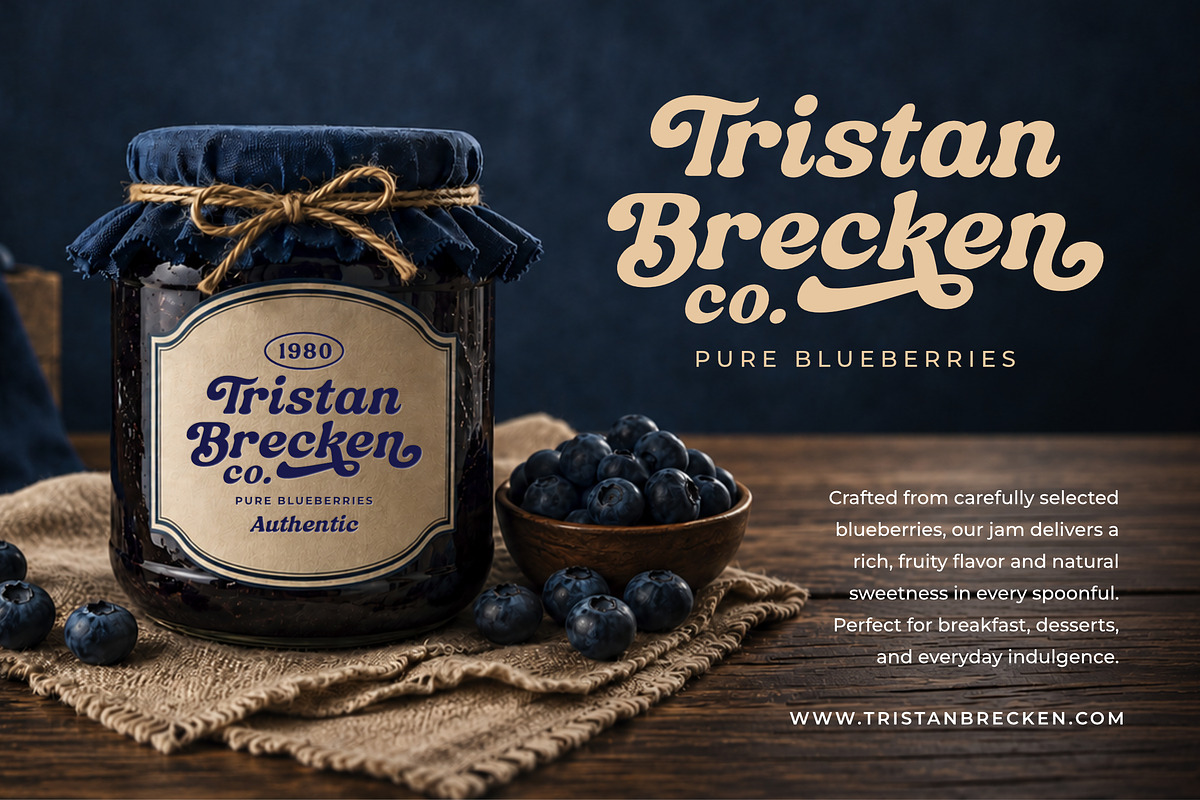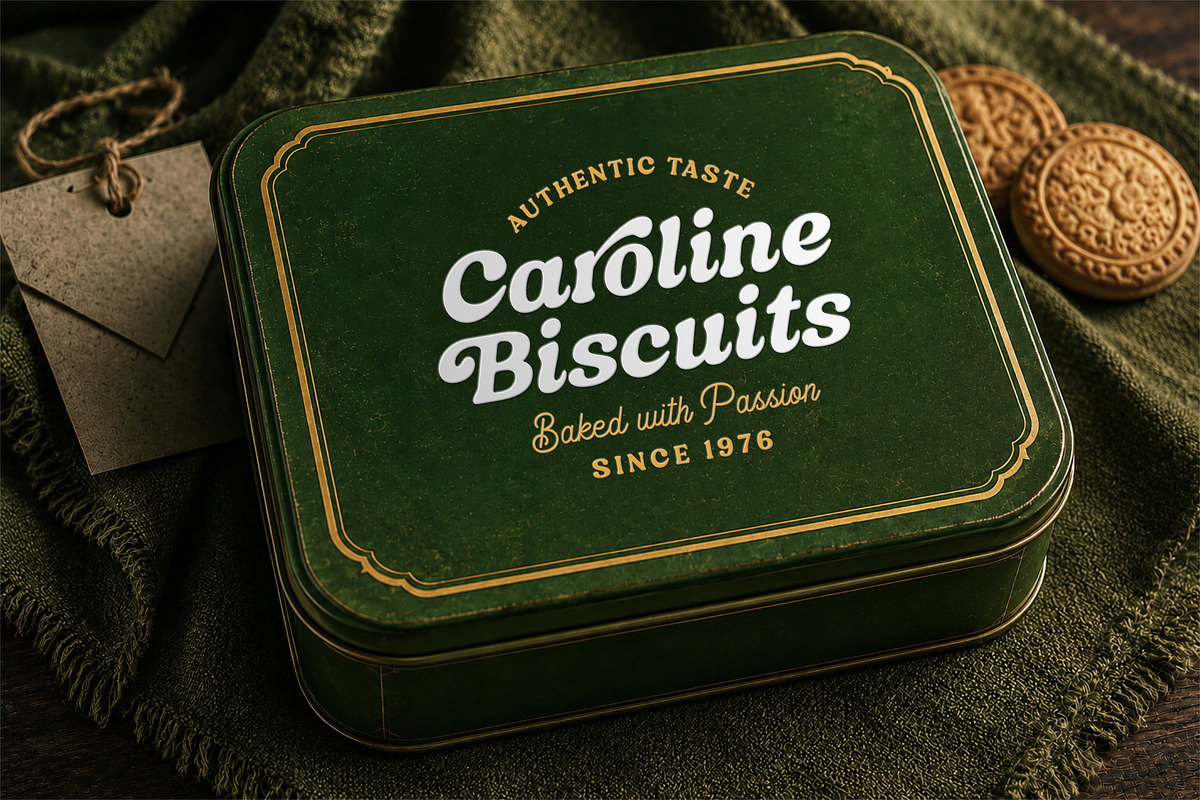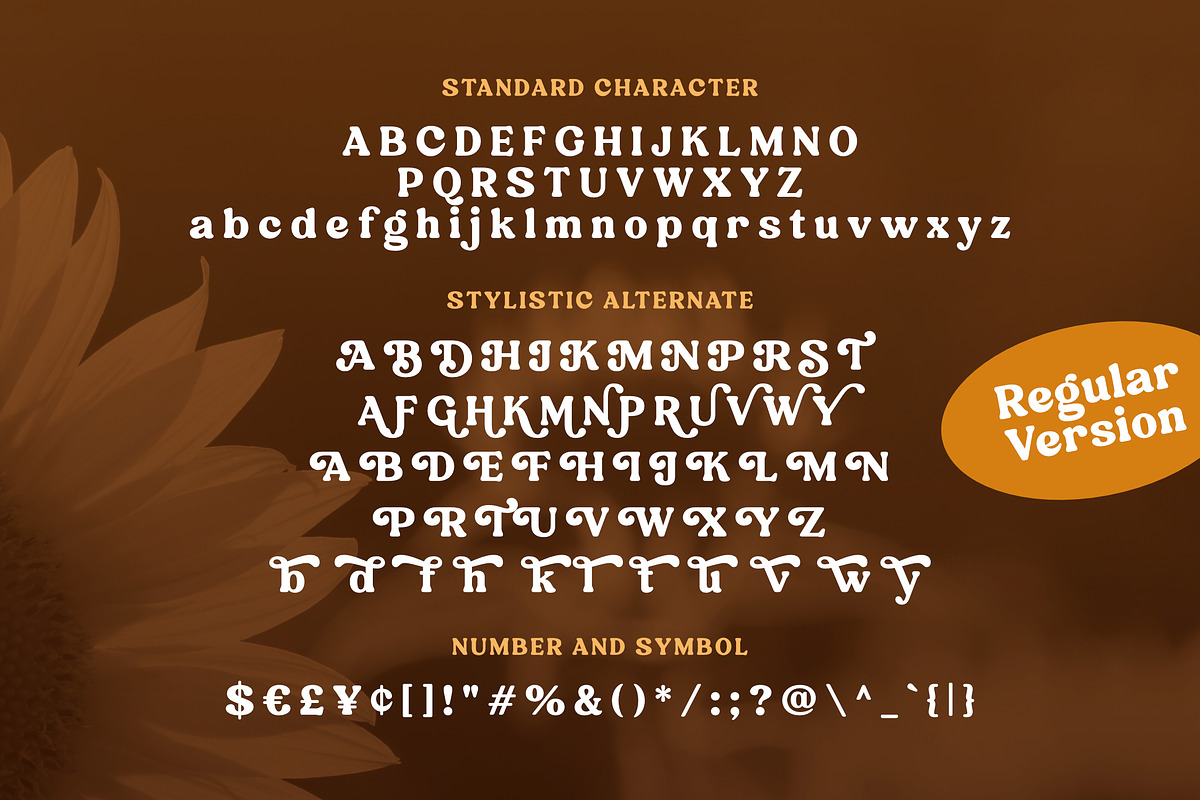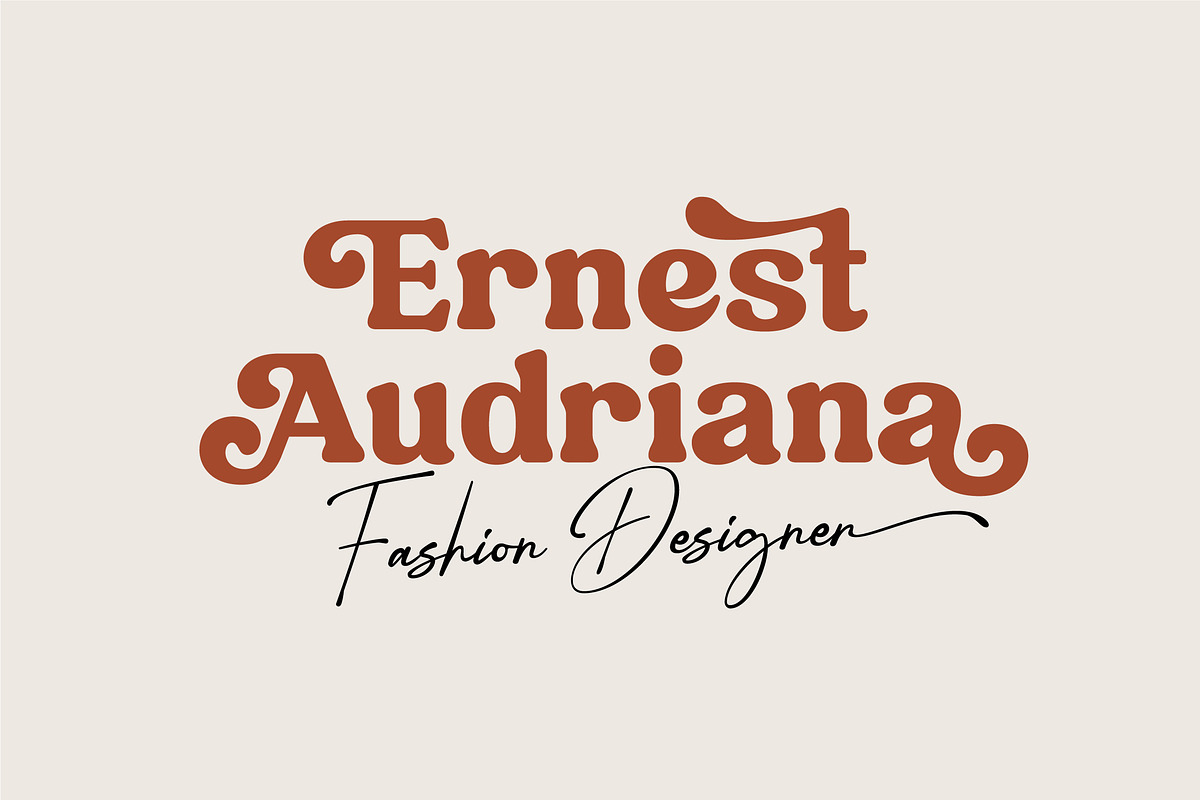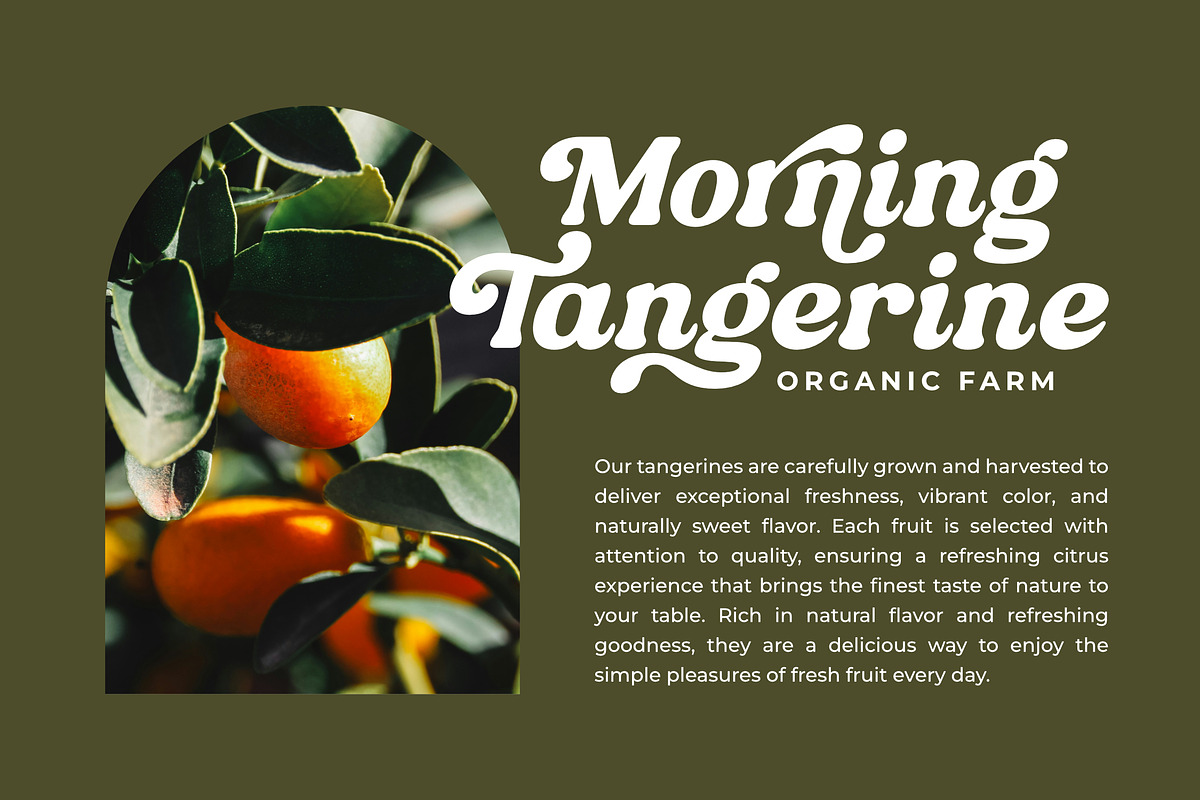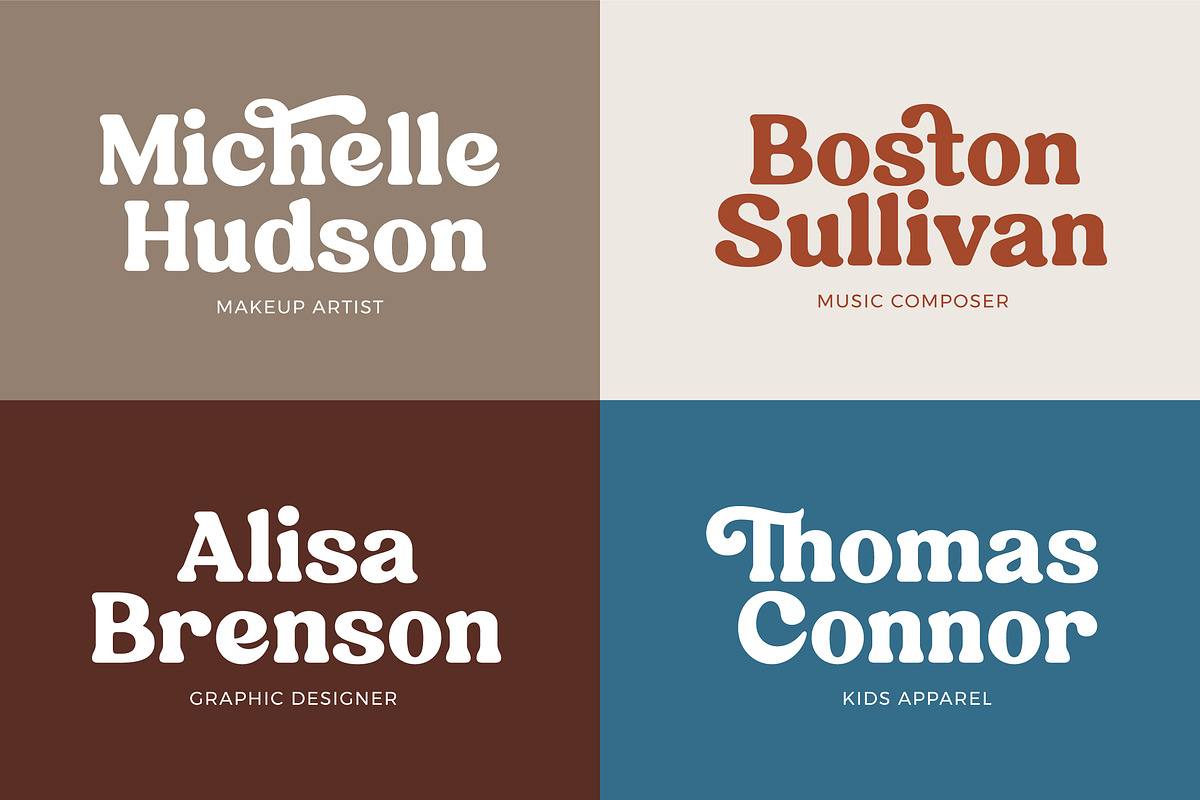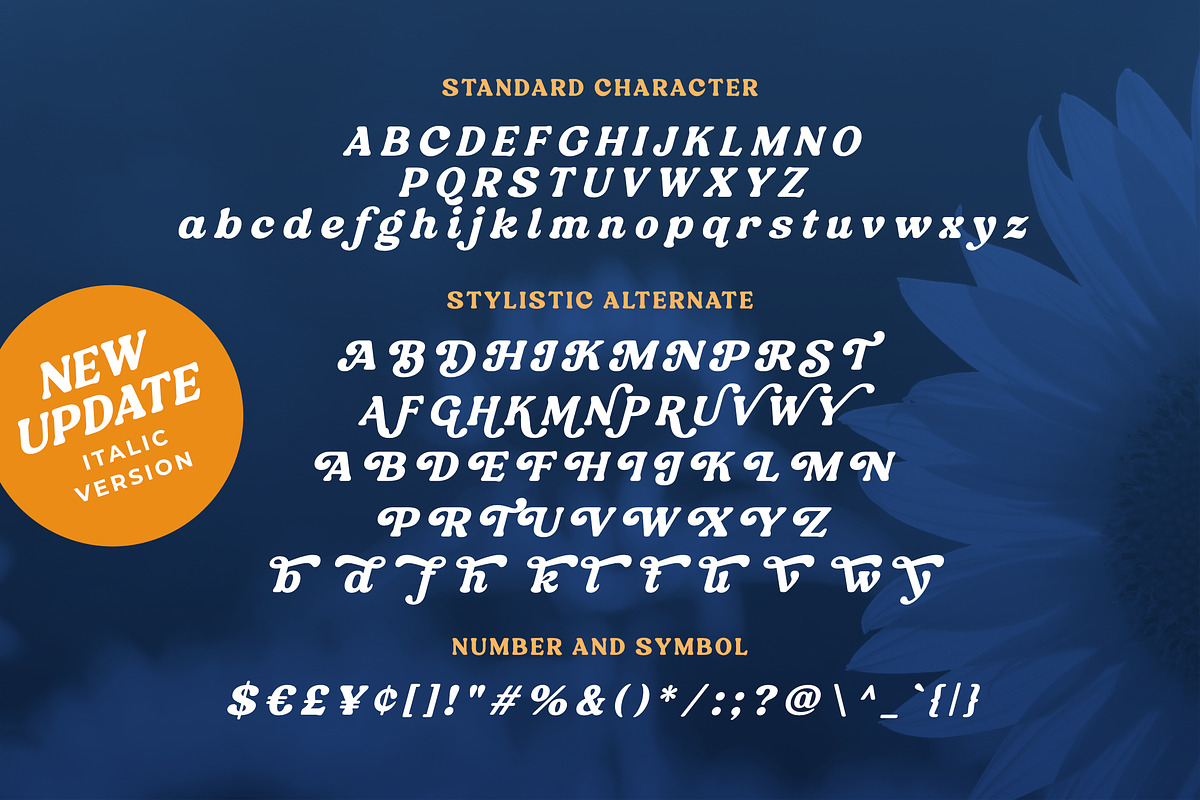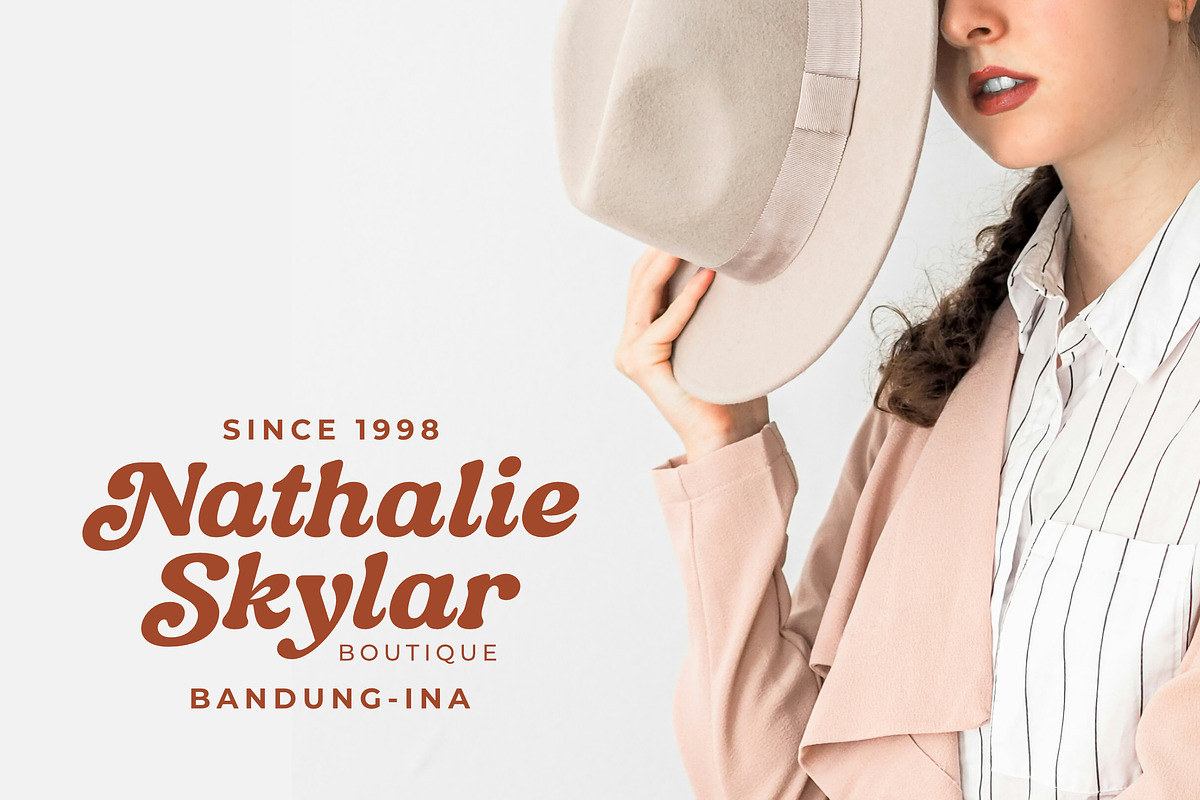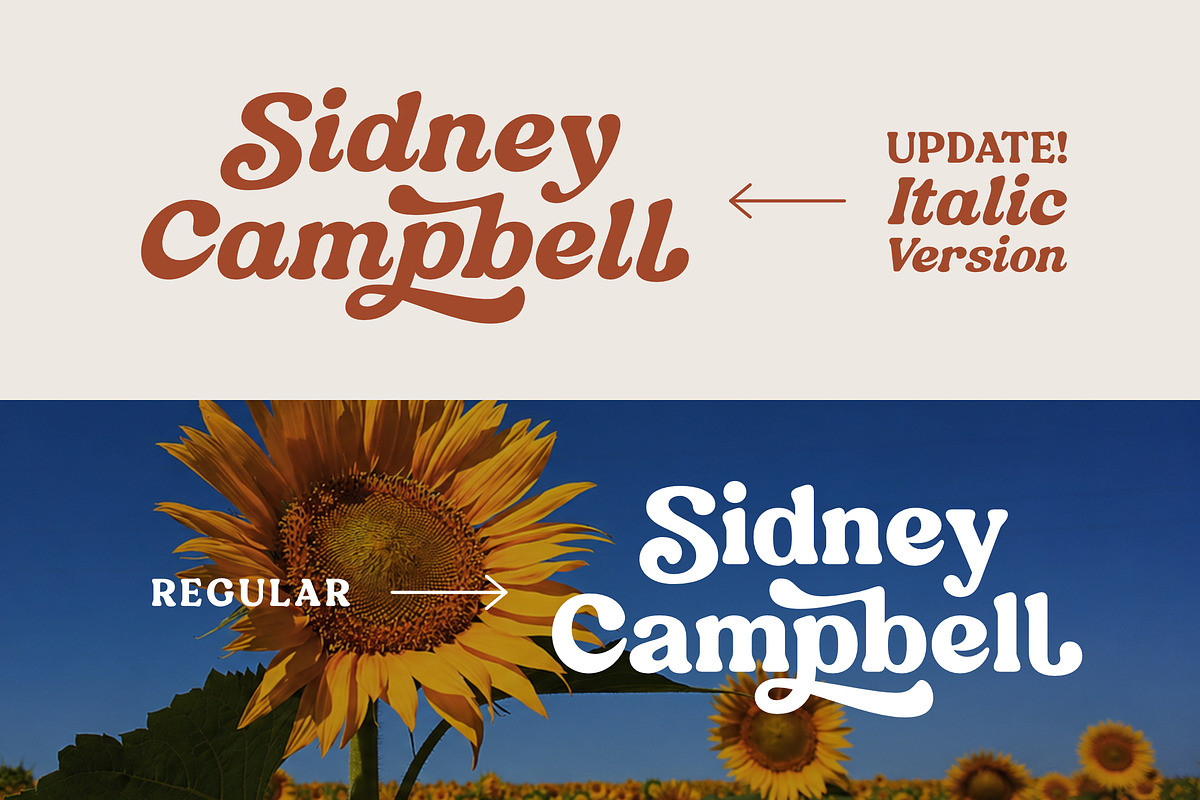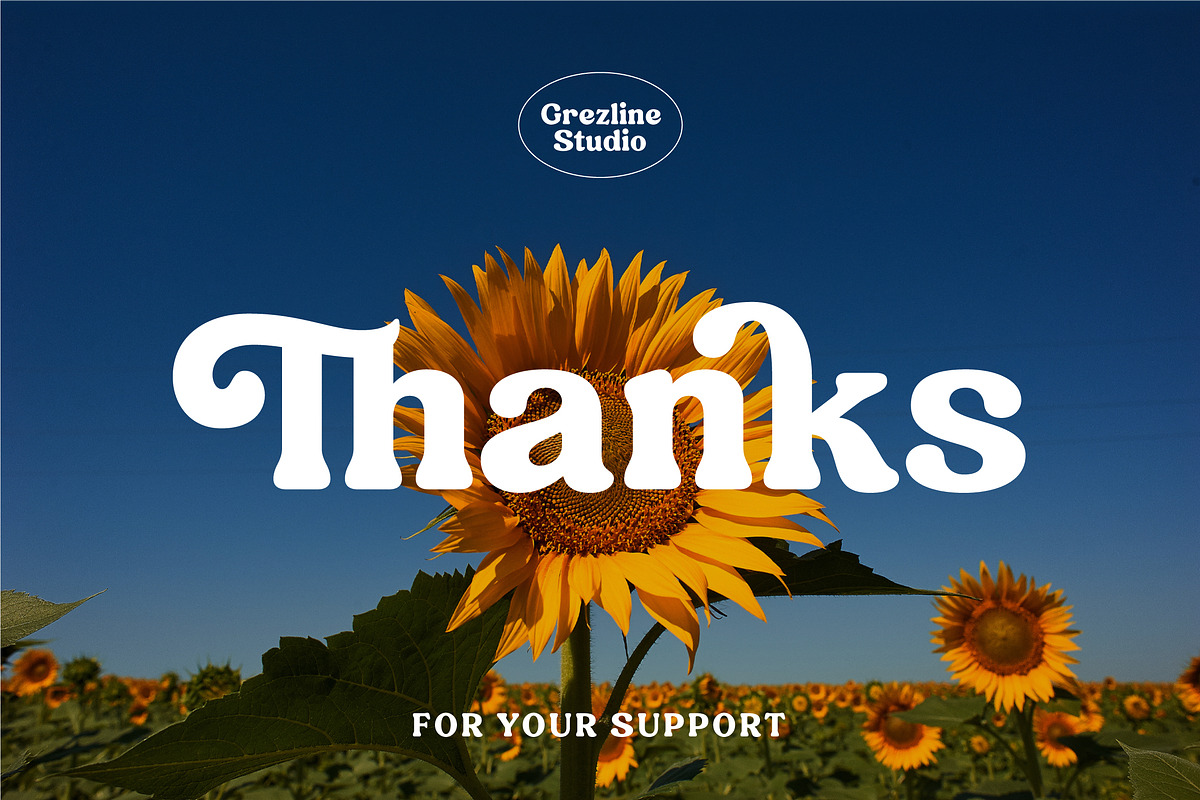
Bremlin - Bold Retro Font - UPDATE!
Hello! Let me Introduce you my latest font creation called Bremlin!
Bremlin is a bold retro font with a lot of alternate glyphs. This font is perfectly match for groovy retro and vintage design. Bremlin font is also usable in a wide range of works such as logos, covers, posters, quotes, product packaging, merchandise, social media and much more! Use this font and let your creativity vibing!!
Ligature & Alternate glyphs
Multilingual Language